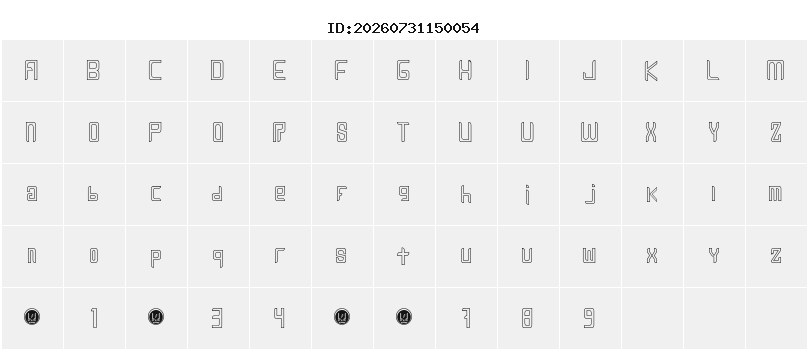
• Font Name: Leven Traze
• Designer: Luis Jaramillo
• Manufacturer: LJ-Design Studios
• Description: Leven Fonts Groups, By LJ-Design Studios For Leven Logo
About Leven Traze.ttf
Leven Traze.ttf is a modern, elegant sans-serif font designed for ultimate readability and visual harmony. Perfect for branding, headlines, web design, and print materials.